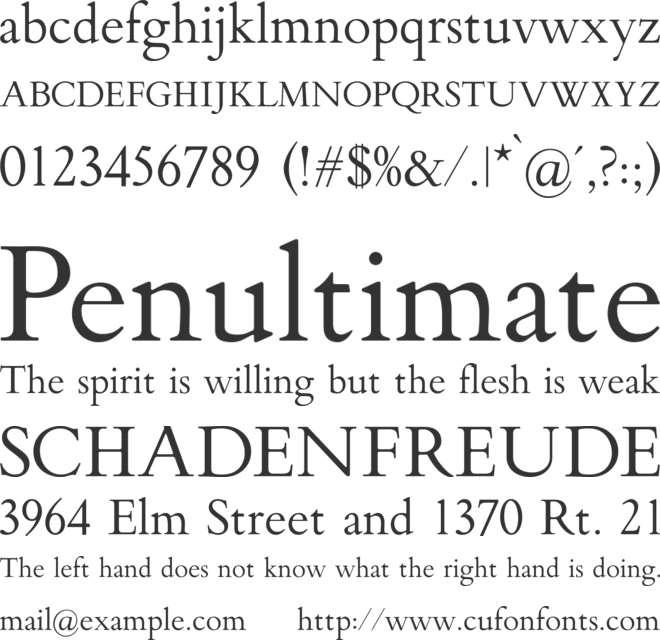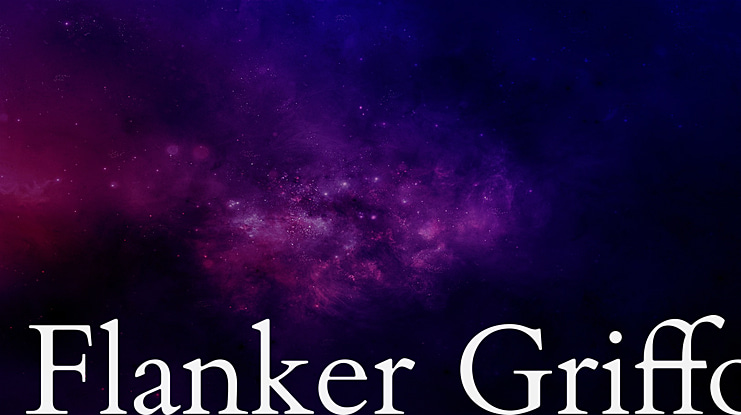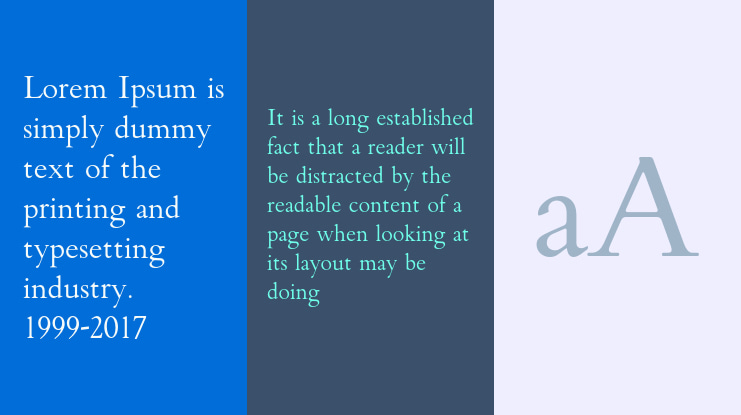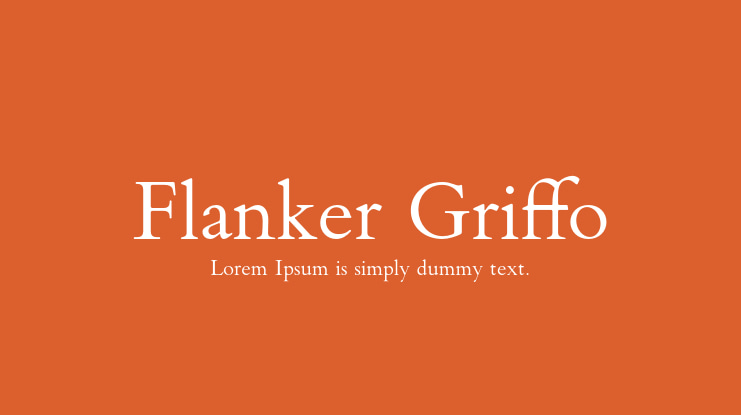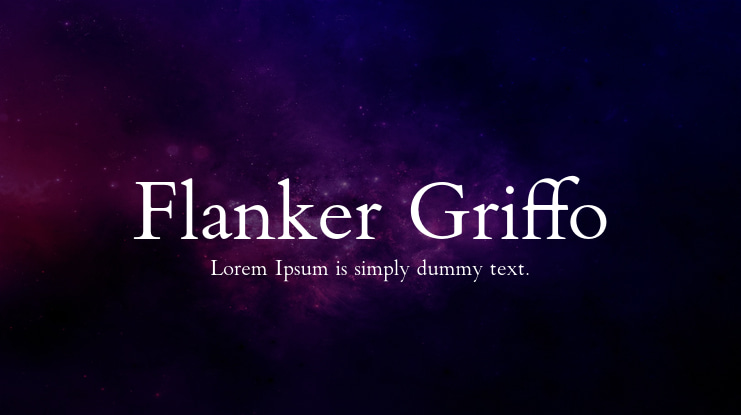
Flanker Griffo Font Family
Francesco da Bologna, Leonardo Di Lena
The Flanker Griffo font reflects the style of typefaces designed by Francesco da Bologna (http://en.wikipedia.org/wiki/Francesco_Griffo), who is called il Griffo, for the Venetian printer Aldo Manuzio (http://en.wikipedia.org/wiki/Aldo_Manuzio) between the late fifteenth and early sixteenth century.In particular, the font are inspired by those designed for de Ætna written by the Cardinal Pietro Bembo (there is actually a version created by The Monotype Corporation named Bembo (https://www.myfonts.com/fonts/mti/bembo/)). Griffo also created an Italic version by studying the handwriting of the acts of the Papal chancery.The letters appear in high contrast, with serif, connections between the arms and ball terminals of the lowercases.The font was totally updated with PostScript curves and OpenType ligatures and kerning. Also many of the special glyphs have been updated according to the latest Unicode tables.